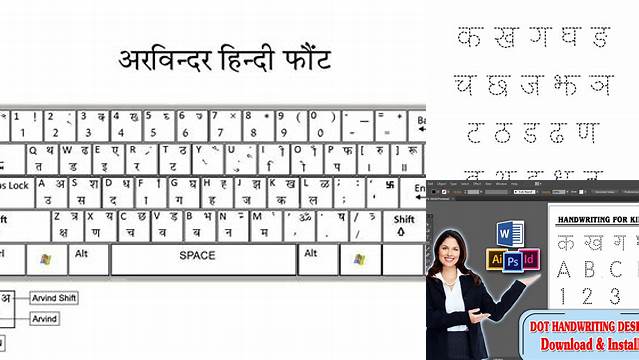
Hey guys! Are you looking for the Arvind Nepali dotted font for your creative projects? You've come to the right place! This comprehensive guide will walk you through everything you need to know about this unique font, including its features, uses, and how to download it for free. We'll dive deep into the world of Nepali typography and explore why the Arvind dotted font is a popular choice among designers and creators. Whether you're working on a school project, a professional design, or simply want to add a touch of Nepali flair to your work, this font can be a fantastic asset. So, letβs get started and explore the fascinating world of the Arvind Nepali dotted font!
The Arvind Nepali dotted font is not just any typeface; it's a carefully crafted design that blends traditional Nepali script with a modern, dotted aesthetic. This unique combination makes it stand out from other Nepali fonts, offering a distinct and eye-catching look. The dotted style adds a playful yet sophisticated touch, making it suitable for a wide range of applications. From educational materials to creative advertisements, this font can bring a unique visual appeal to your projects. In this guide, we'll explore the various ways you can use this font to enhance your designs and make them more engaging. We'll also cover the technical aspects of downloading and installing the font, ensuring you have a smooth and hassle-free experience. So, stick around as we uncover the magic of the Arvind Nepali dotted font and how it can elevate your creative endeavors.
Moreover, understanding the nuances of the Arvind Nepali dotted font can significantly impact your design choices. For instance, the spacing between the dots, the thickness of the lines, and the overall character shape all contribute to the font's readability and aesthetic appeal. Knowing these details allows you to use the font effectively in different contexts, whether it's for headlines, body text, or graphic elements. We'll also delve into the cultural significance of Nepali fonts and how the Arvind dotted font fits into this rich tradition. By appreciating the history and context behind the font, you can use it in a way that respects and celebrates Nepali heritage. So, let's embark on this journey together and discover the endless possibilities that the Arvind Nepali dotted font offers!
What is Arvind Nepali Dotted Font?
So, what exactly is the Arvind Nepali dotted font? Well, in simple terms, it's a Nepali typeface that features a dotted design. This means that instead of solid lines, the characters are formed by a series of dots. This gives the font a unique and distinctive look, making it stand out from traditional Nepali fonts. The dotted style adds a playful and modern touch, making it a popular choice for various design projects. It's like adding a sprinkle of creativity to your text, making it visually appealing and engaging. Think of it as the stylish cousin of the regular Nepali font family!
The beauty of the Arvind Nepali dotted font lies in its versatility. It's not just a pretty face; it's also highly functional. The dotted design doesn't compromise readability, which is crucial for any font. Whether you're using it for headlines, body text, or graphic elements, the Arvind dotted font ensures your message is clear and easily understood. This makes it an excellent choice for a wide range of applications, from educational materials to marketing campaigns. Imagine using this font in a children's book β the dotted style can make learning the Nepali alphabet fun and engaging! Or picture it in a poster for a cultural event, where its unique look can capture attention and create a memorable impression. The possibilities are endless!
Furthermore, the creation of the Arvind Nepali dotted font is a testament to the evolution of typography. It represents a fusion of traditional script with contemporary design sensibilities. This font isn't just about aesthetics; it's also about innovation and pushing the boundaries of what's possible in typography. It shows how a simple design element, like dots, can transform a familiar script into something fresh and exciting. The Arvind dotted font is a perfect example of how designers can blend heritage with modernity to create something truly special. It's a font that not only looks good but also tells a story of creativity and cultural expression. So, next time you see this font, remember that it's more than just dots on a page β it's a piece of art!
Key Features and Benefits
The key features and benefits of the Arvind Nepali dotted font are numerous, making it a valuable addition to any designer's toolkit. First and foremost, its unique dotted design sets it apart from conventional Nepali fonts, adding a touch of creativity and modernity to your projects. This distinctive style can help your designs stand out and capture attention, whether you're creating posters, invitations, or website graphics. The font's visual appeal makes it particularly effective for projects that aim to engage and delight the audience.
Another significant benefit is its versatility. The Arvind Nepali dotted font is suitable for a wide range of applications, from formal documents to casual designs. Its readability remains excellent despite the dotted style, ensuring that your message is always clear and easily understood. This makes it a practical choice for both headlines and body text. Imagine using it for the title of a research paper, where its unique look can add a touch of sophistication, or for the text of a children's storybook, where its playful design can make reading more enjoyable. The font's adaptability ensures that it can meet diverse design needs.
Moreover, the Arvind Nepali dotted font often comes with a complete set of Nepali characters, including numerals and special symbols. This comprehensive character set allows you to create fully realized Nepali text without having to rely on multiple fonts. This is a huge time-saver for designers and ensures consistency across your projects. Additionally, the font is often available in various weights and styles, giving you even more flexibility in your design choices. Whether you need a bold version for emphasis or a light version for a more delicate look, the Arvind dotted font has you covered. The combination of a unique design, excellent readability, and a comprehensive character set makes this font a powerful tool for any creative endeavor.
Where to Use Arvind Nepali Dotted Font
Wondering where to use the Arvind Nepali dotted font? Well, the possibilities are virtually endless! This font's unique style makes it a fantastic choice for a wide range of projects. Think about using it for posters and banners, where its distinctive look can grab attention and make your message stand out. Its playful yet sophisticated design is also perfect for invitations and greeting cards, adding a touch of elegance and fun. Imagine receiving an invitation with the Arvind dotted font β it's sure to make a memorable impression!
Now that you're equipped with the knowledge and resources to use the Arvind Nepali dotted font, it's time to unleash your creativity and bring your ideas to life! Go ahead, download the font, install it, and start designing. We can't wait to see what amazing things you create with this fantastic typeface. Happy designing, and remember, the only limit is your imagination! If you have any questions or need further assistance, feel free to reach out to online communities and forums dedicated to typography and design. There's a wealth of knowledge and support available, and we're all here to help each other grow and learn. So, go forth and create β the world is waiting to see your designs!